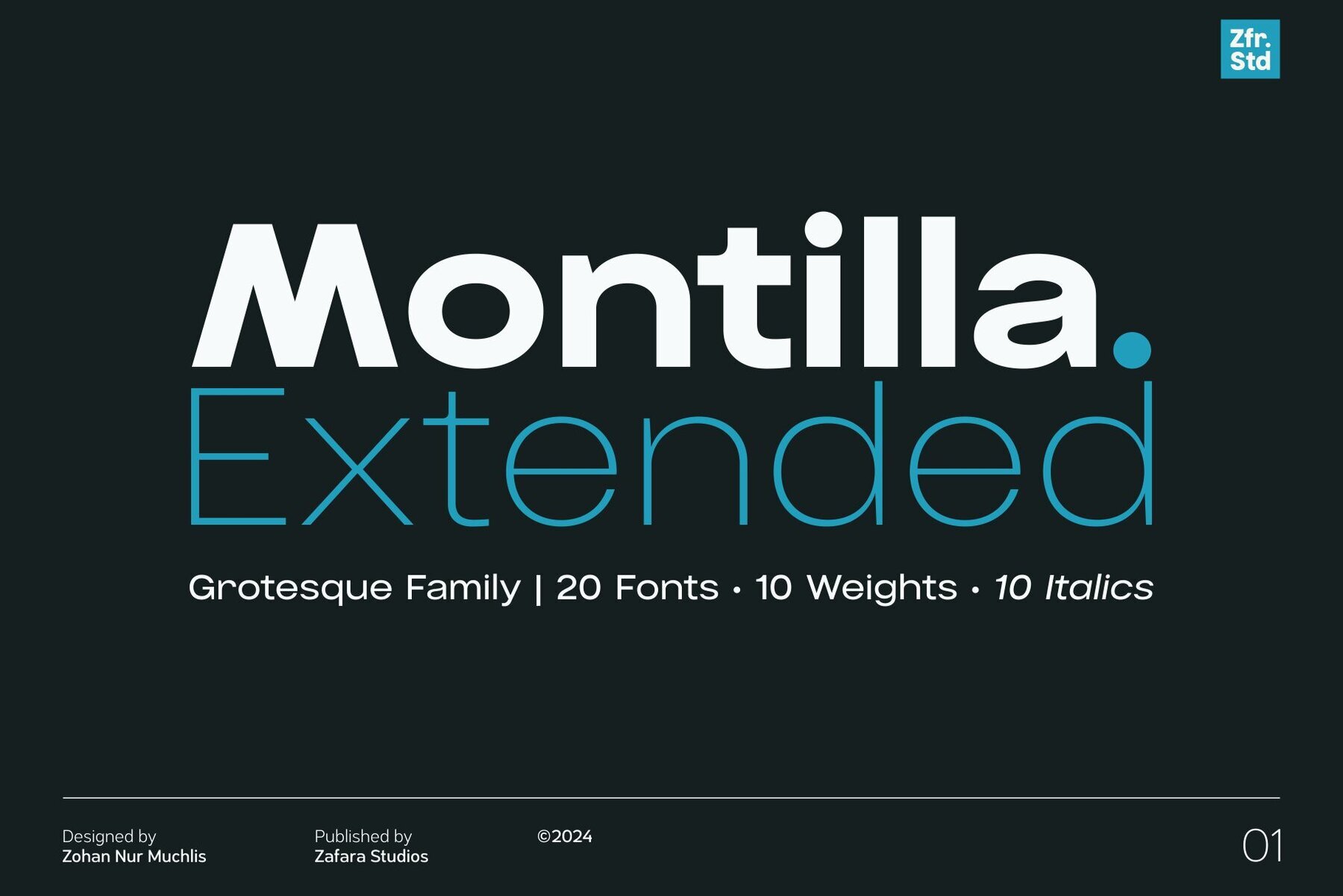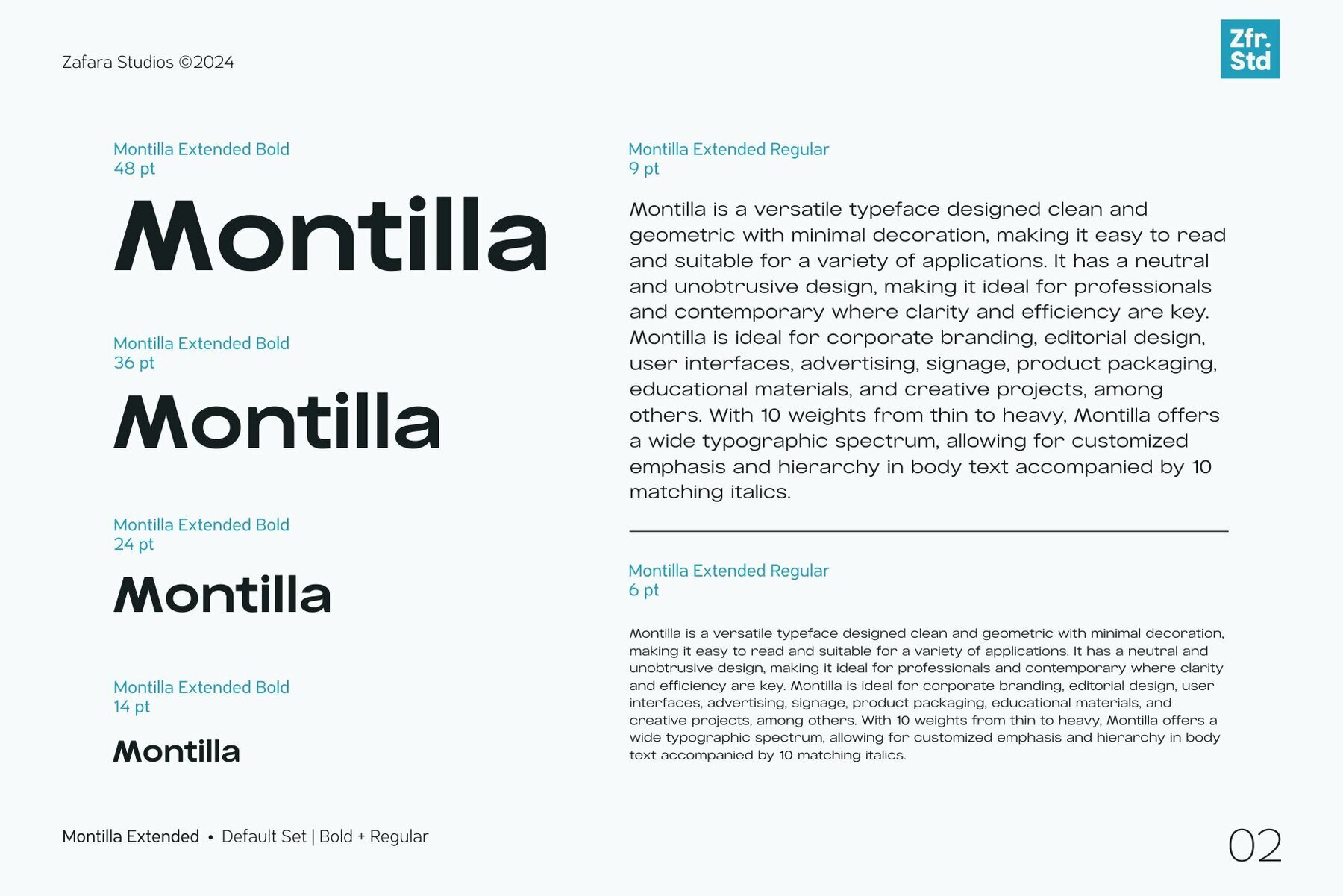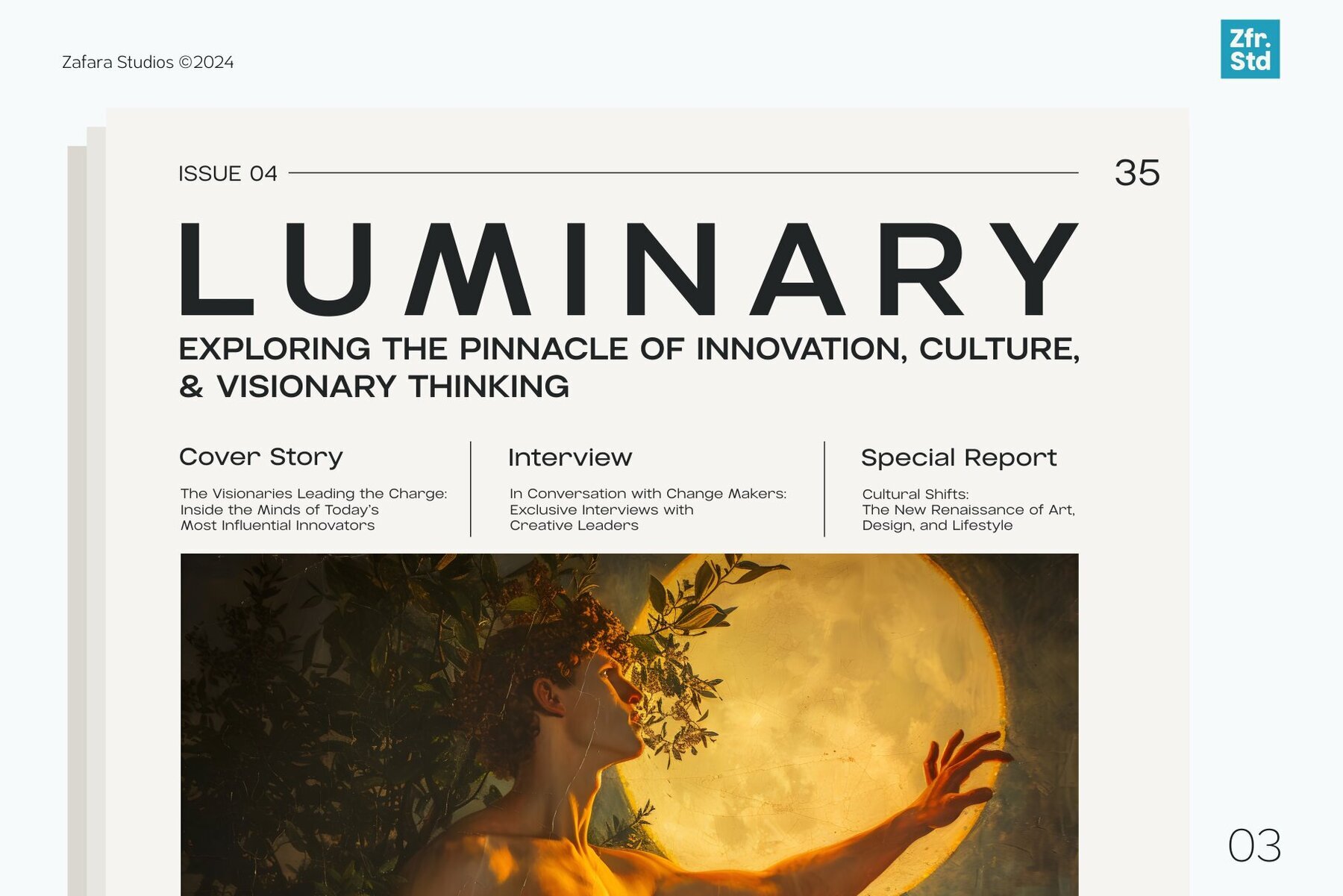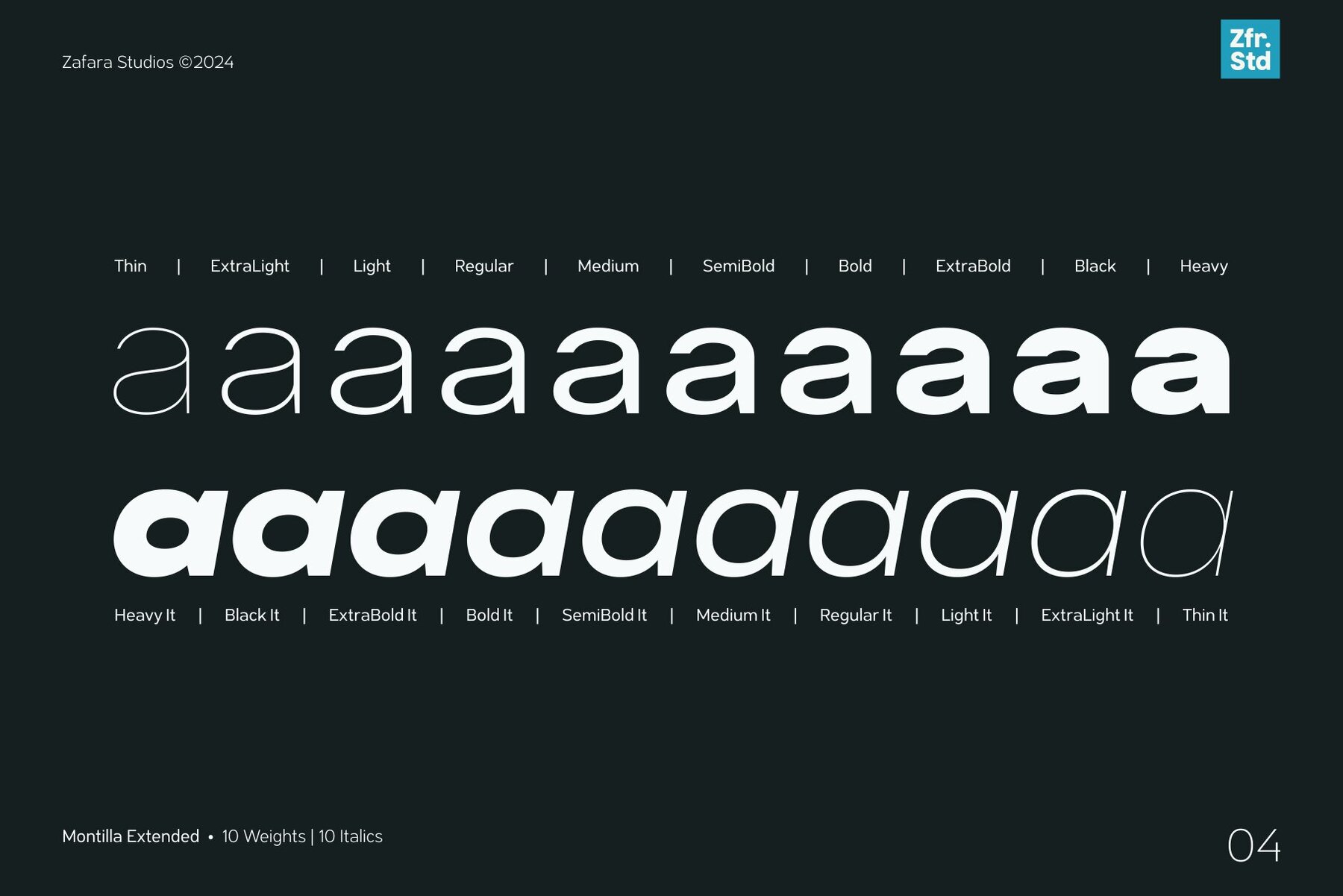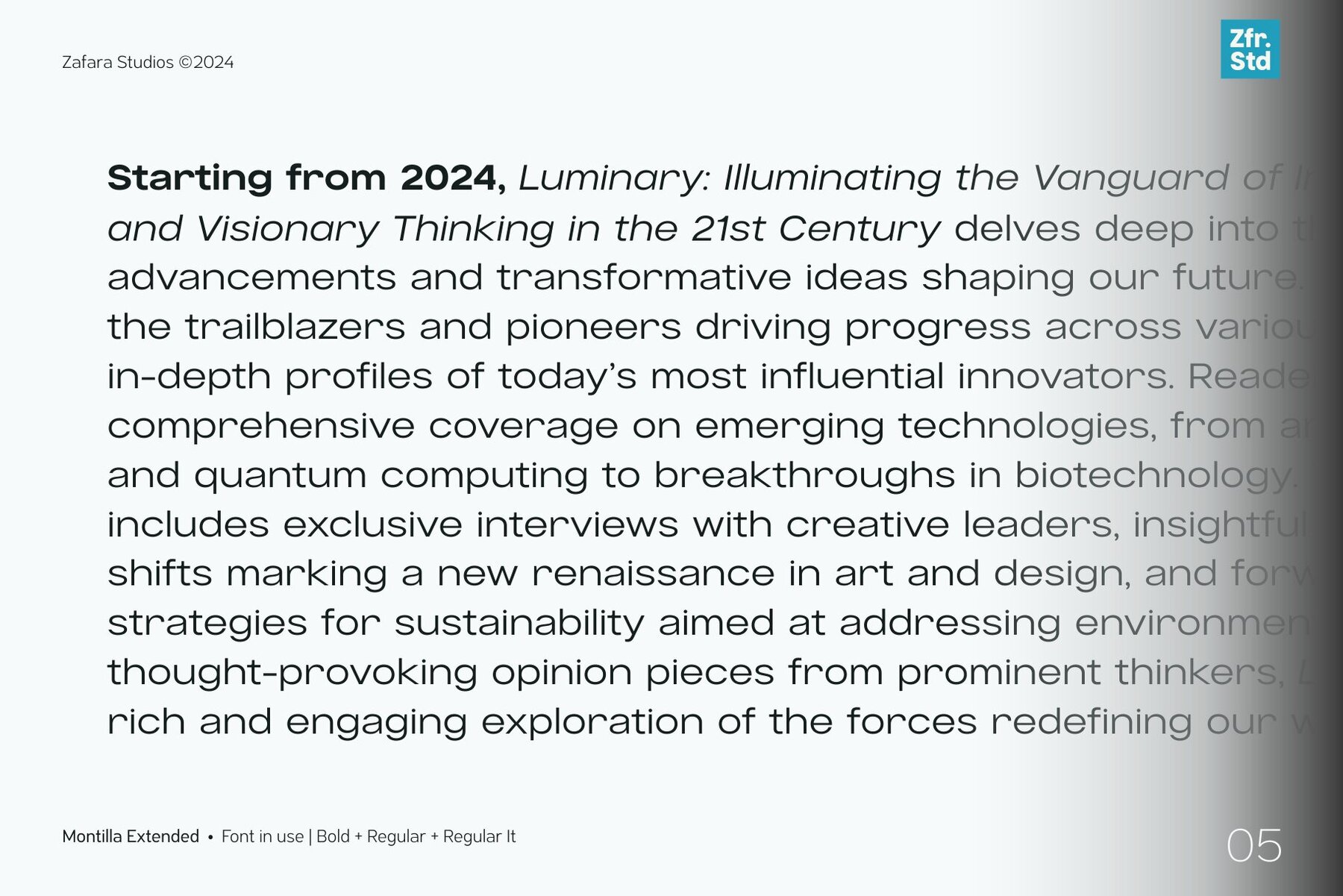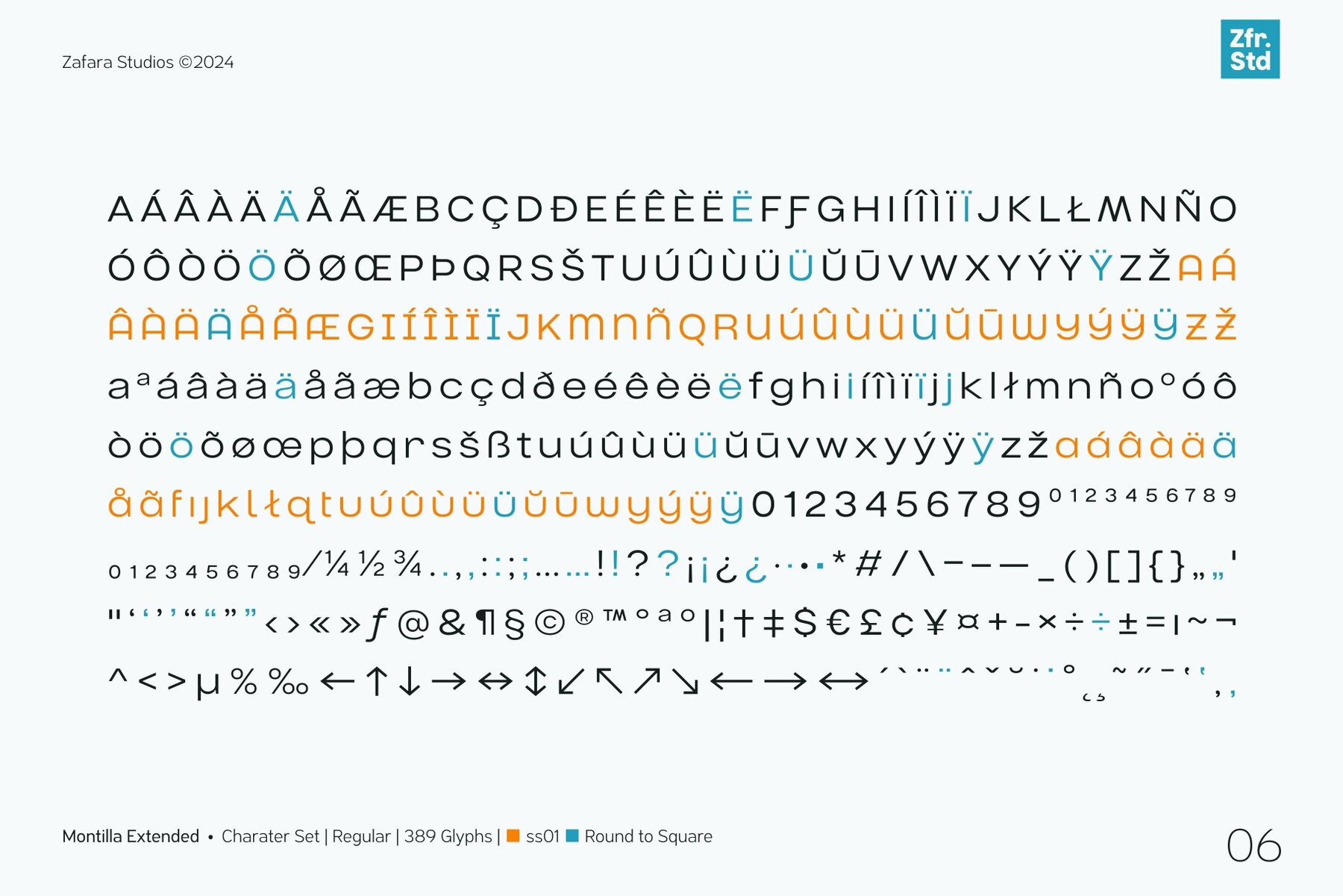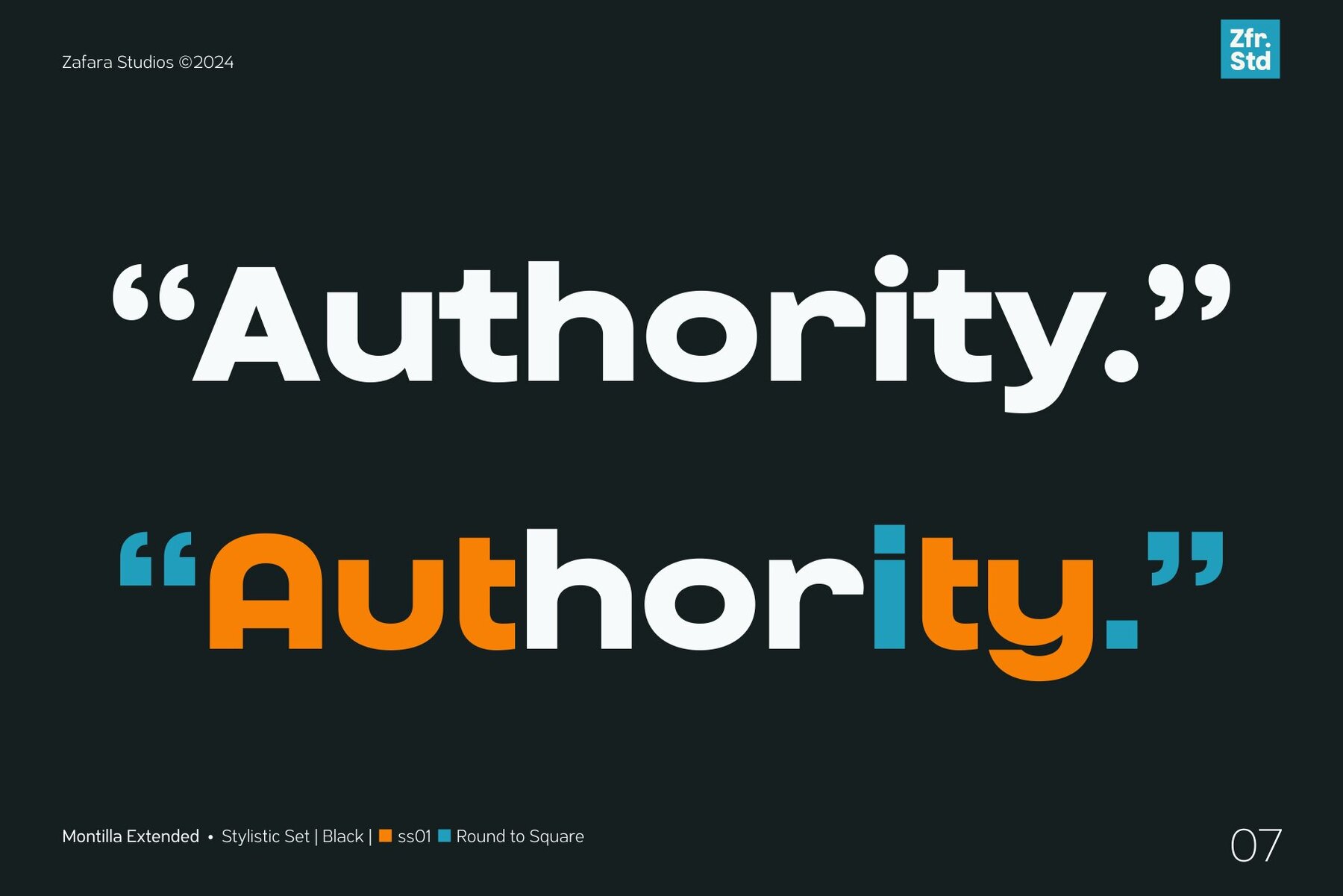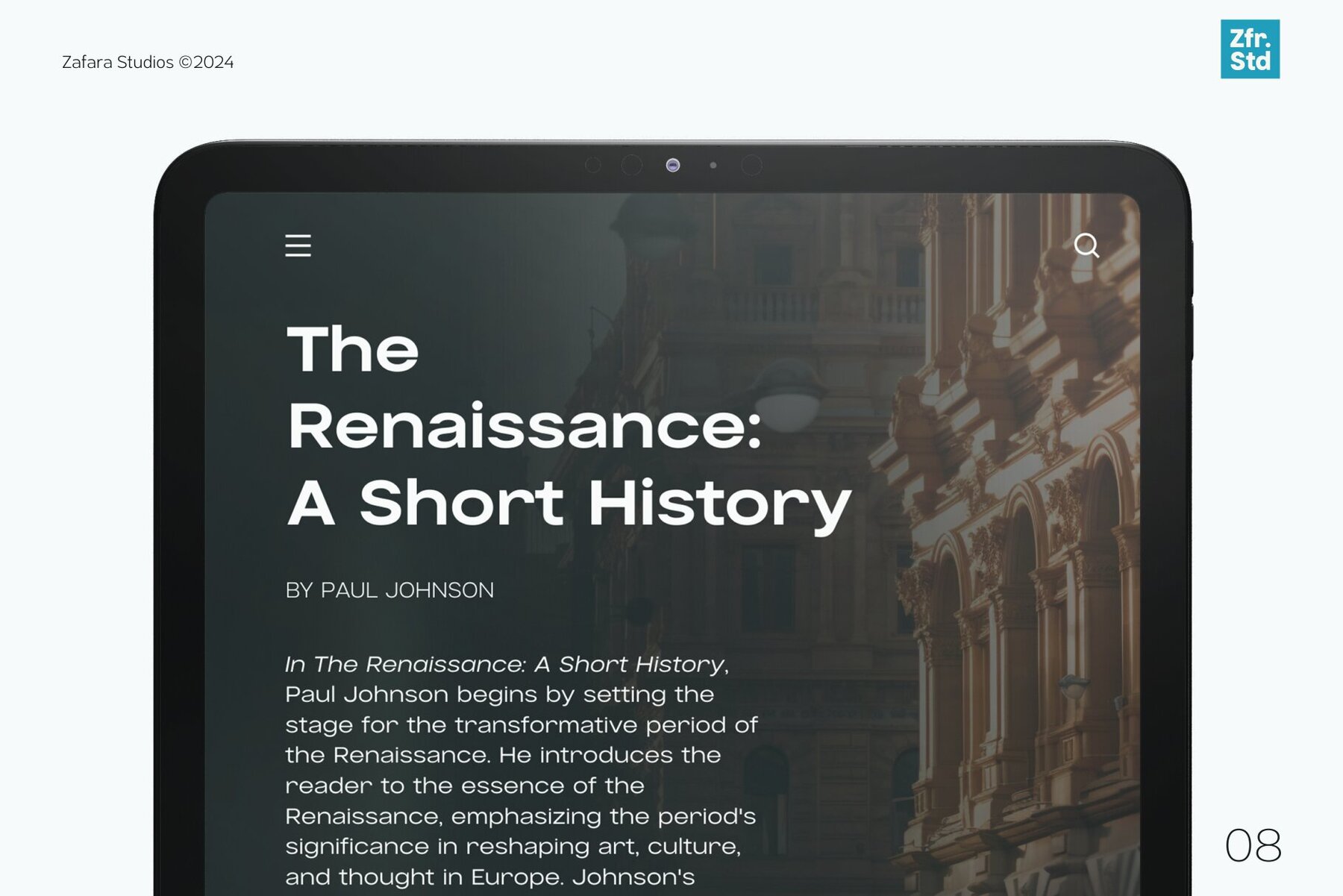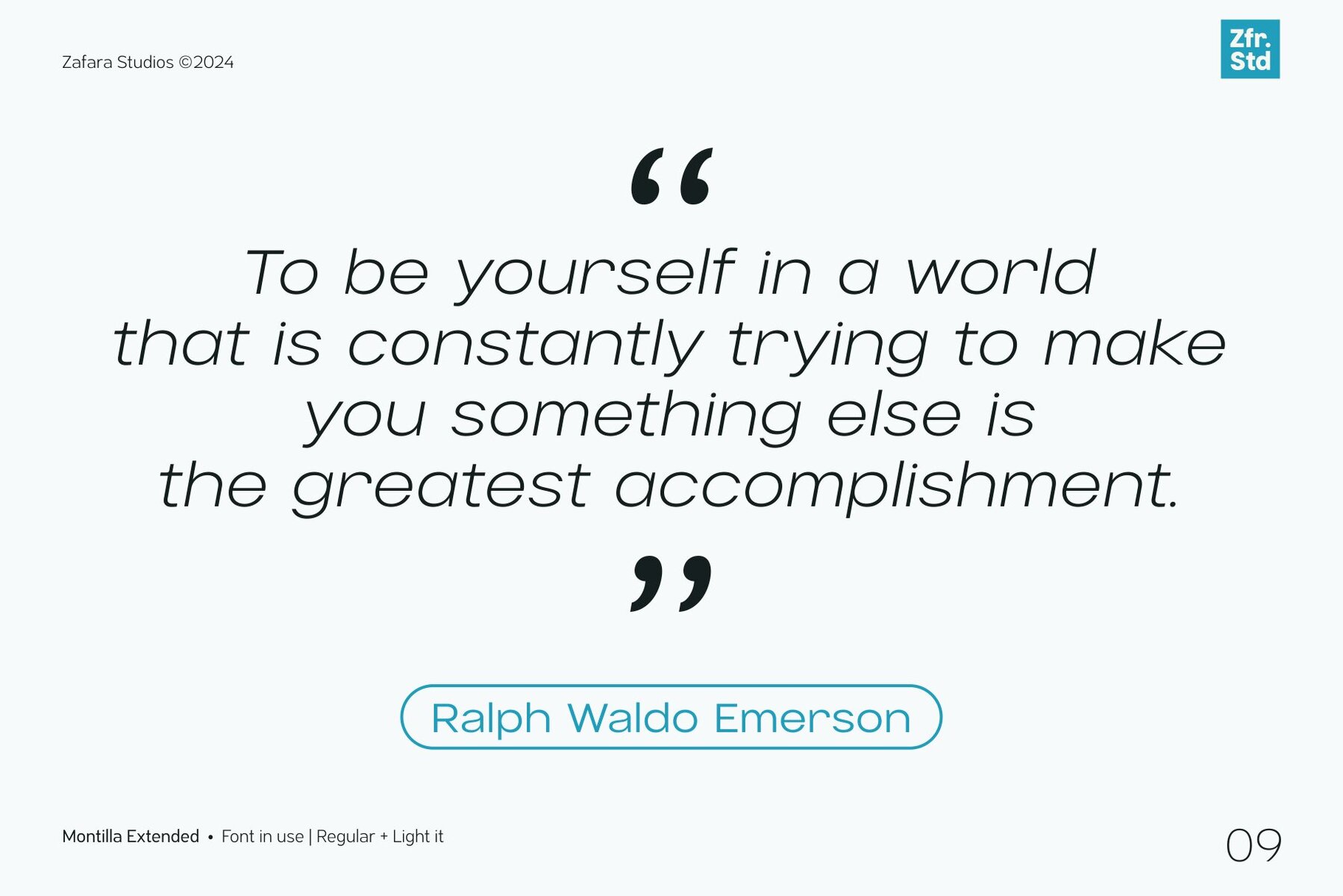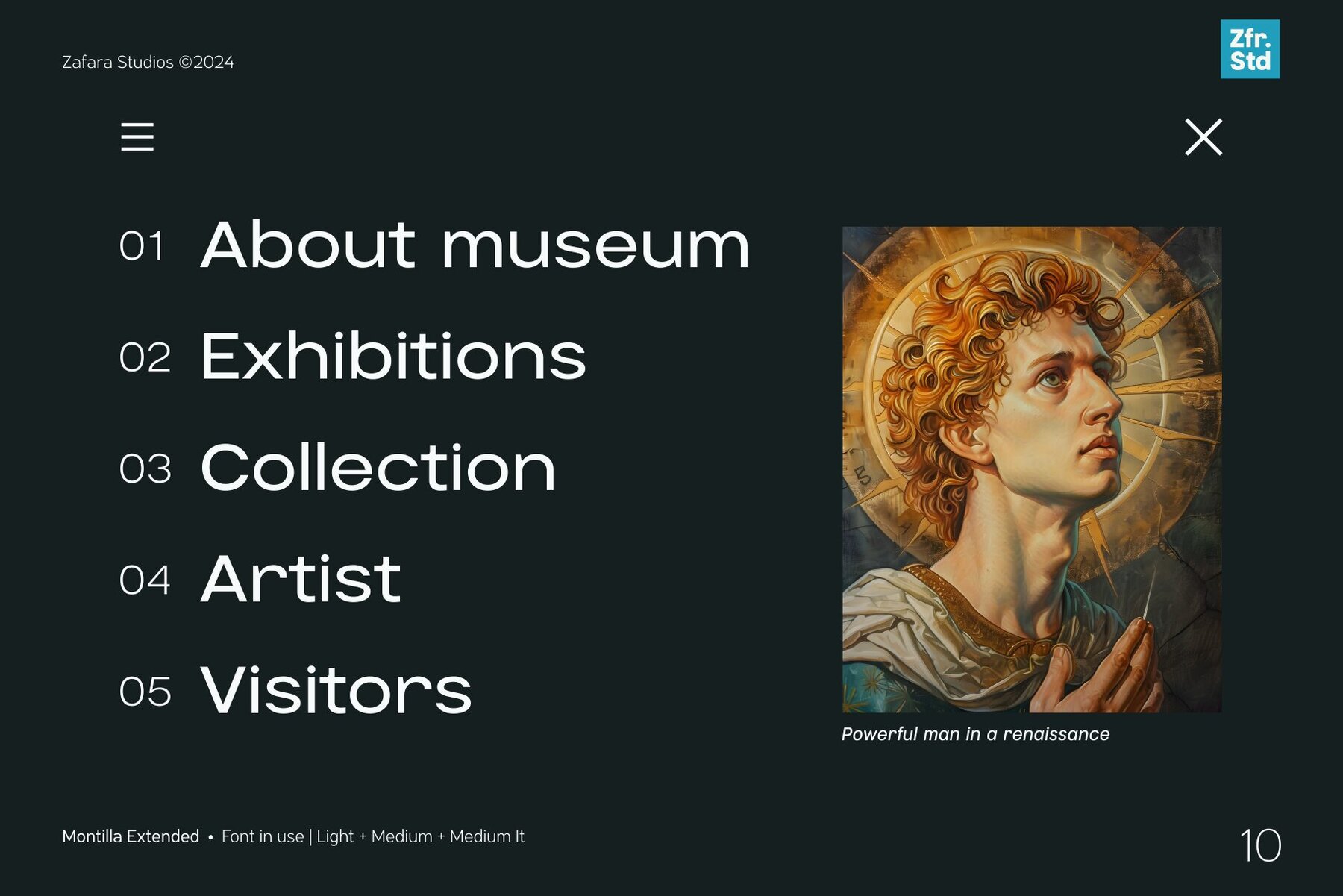
Montilla Extended Font
Montilla is a versatile typeface designed clean and geometric with minimal decoration, making it easy to read and suitable for a variety of applications. It has a neutral and unobtrusive design, making it ideal for professionals and contemporary where clarity and efficiency are key. Montilla is ideal for corporate branding, editorial design, user interfaces, advertising, signage, product packaging, educational materials, and creative projects, among others. With 10 weights from thin to heavy, Montilla offers a wide typographic spectrum, allowing for customized emphasis and hierarchy in body text accompanied by 10 matching italics. The details: